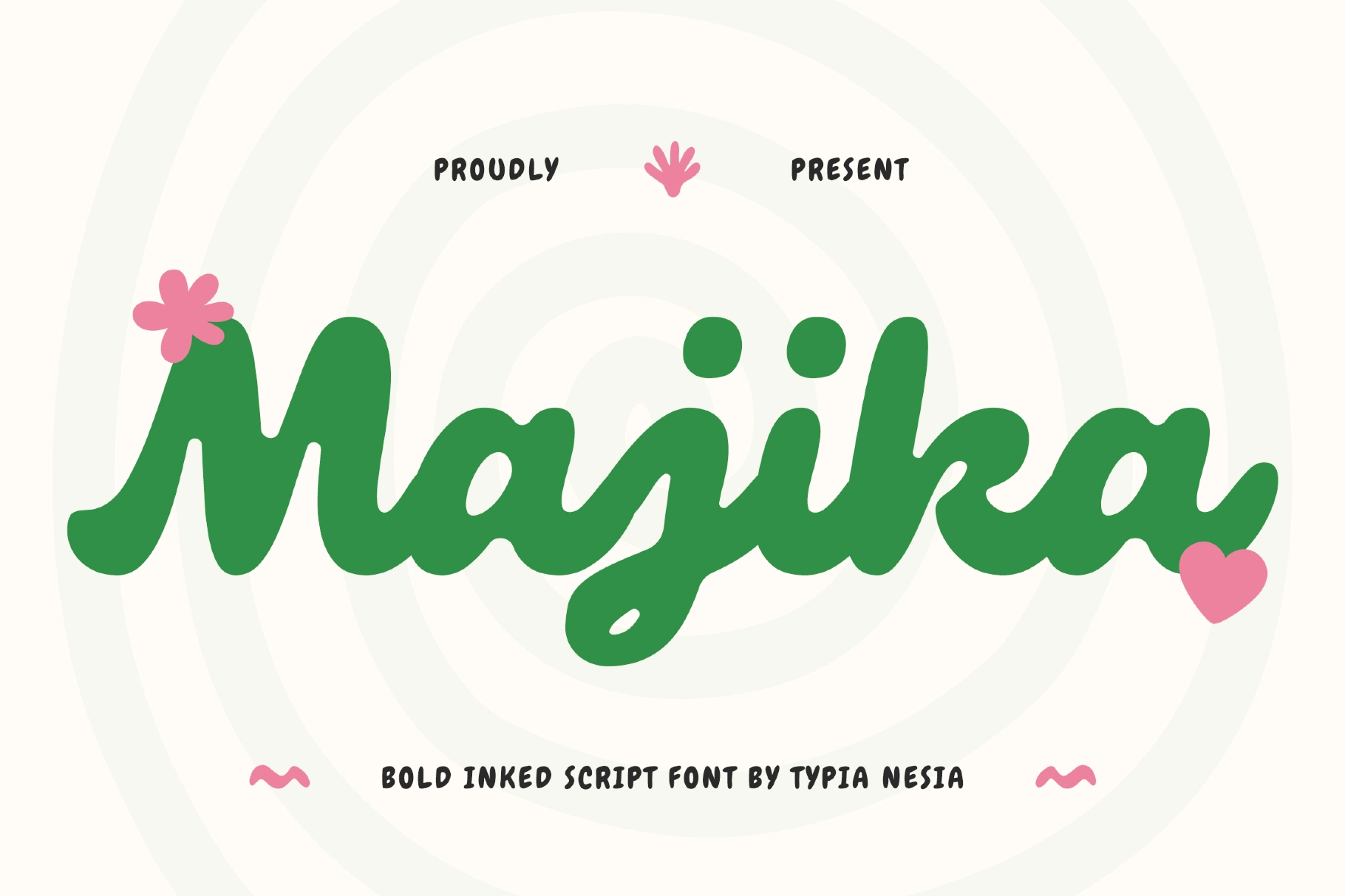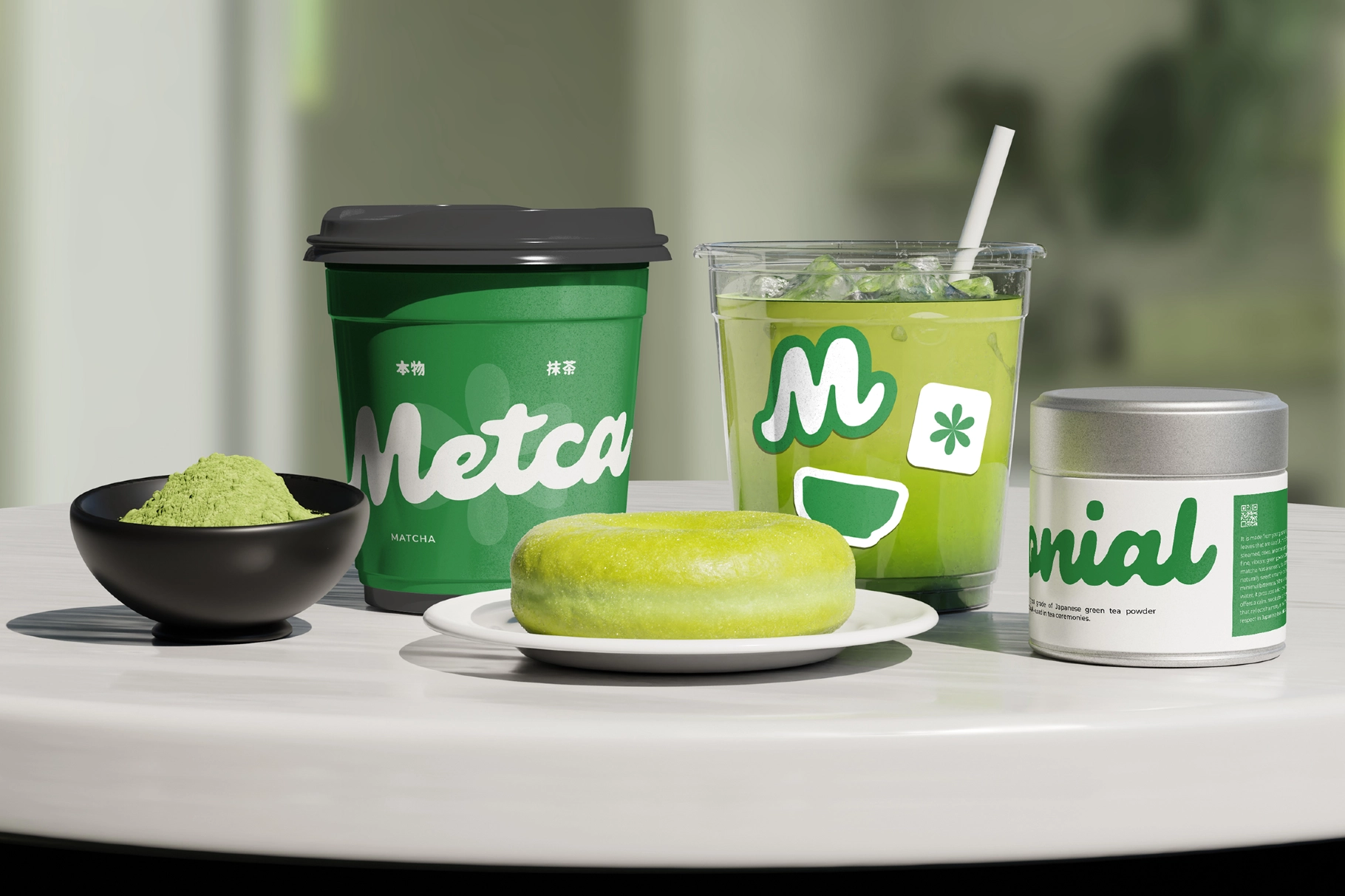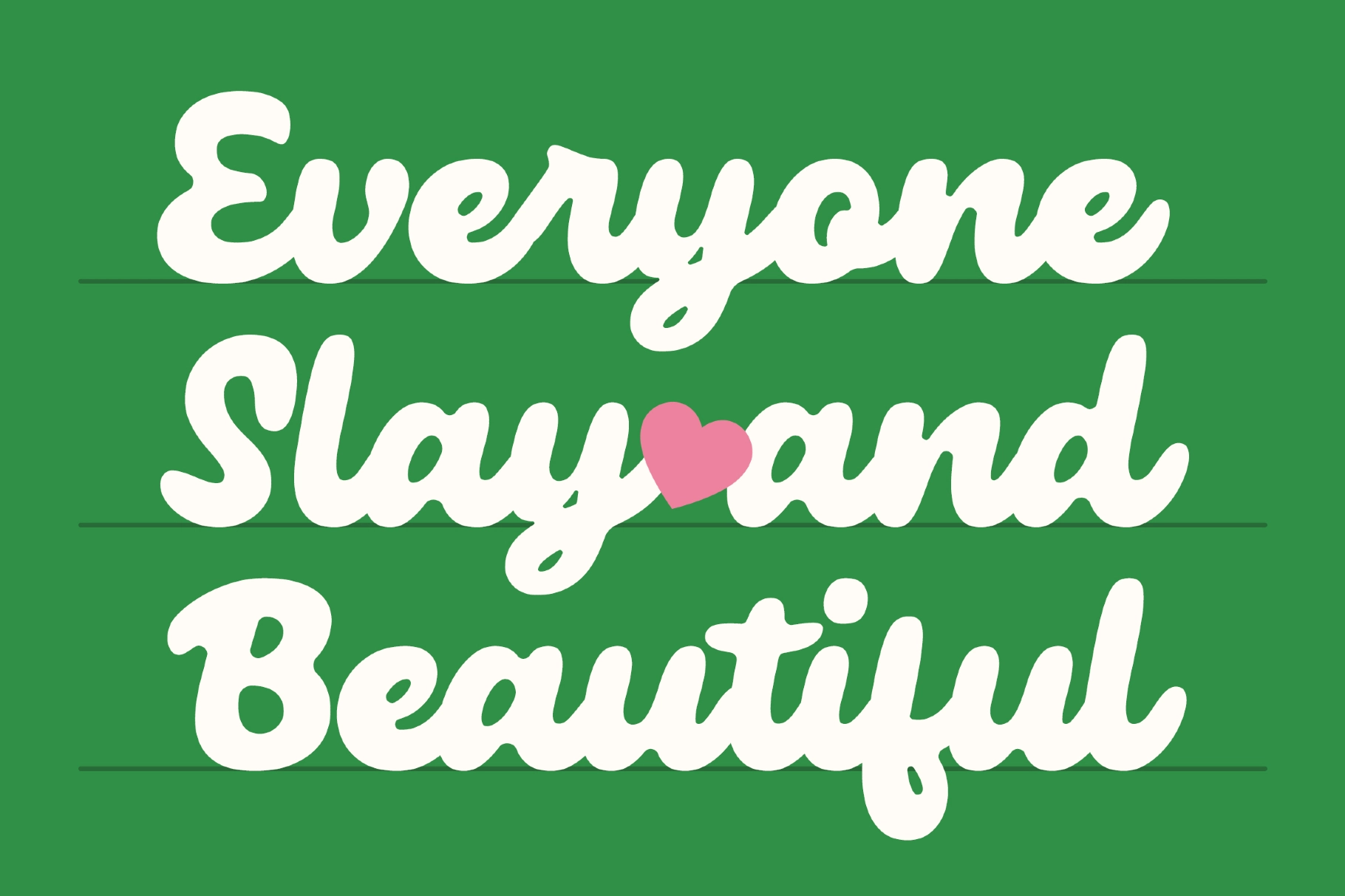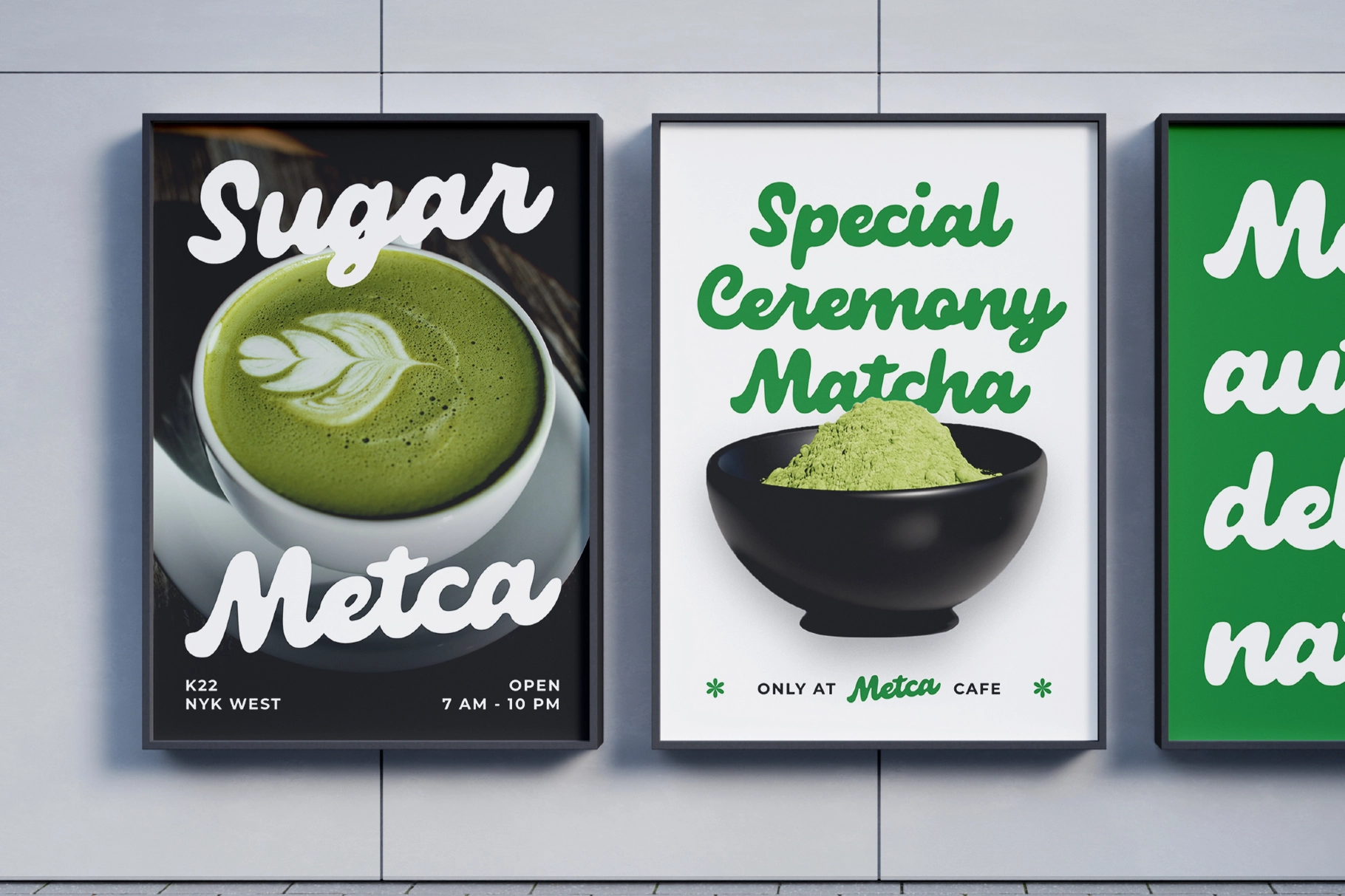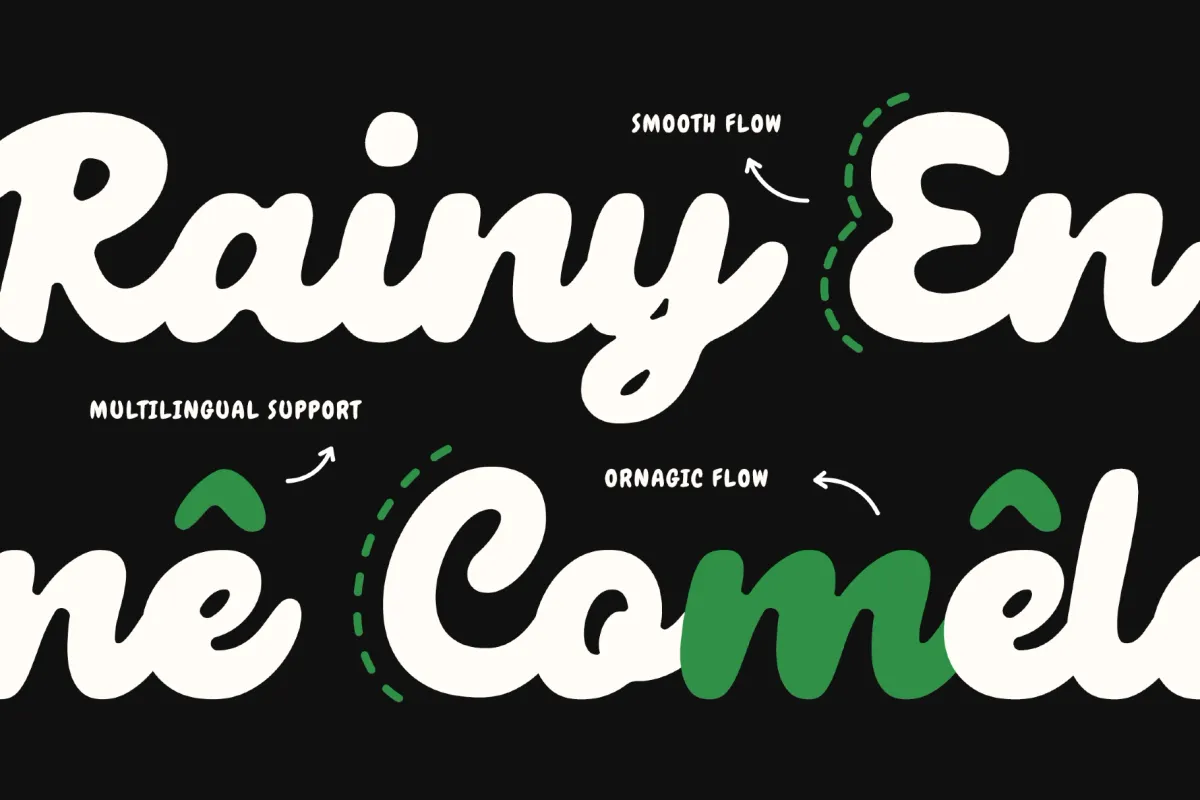
Majika - Bold Retro Script
Majika
Majika - Bold Retro Script is a playful brush lettering typeface that captures the spirit of nostalgic retro design with a fresh, cheerful twist. Inspired by 1980s aesthetics, this font blends bold strokes with smooth, flowing curves to create a warm and friendly visual tone.
Its expressive handwritten style brings energy and personality to every word, making it perfect for projects that aim to feel inviting, fun, and full of character. The rounded forms and dynamic rhythm give Majika a natural, effortless look that stands out while remaining highly readable.
Ideal for café branding, bakery packaging, logos, merchandise, and retro-inspired designs, Majika adds a cozy and joyful atmosphere to any creative project.
- Bold expressive brush strokes
- Smooth handwritten script style
- Retro 80s-inspired aesthetic
- Perfect for logos, packaging, and branding
- Great for cheerful and nostalgic designs